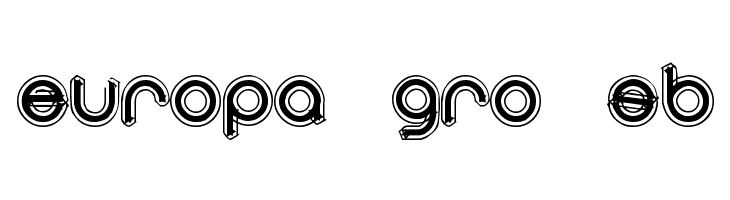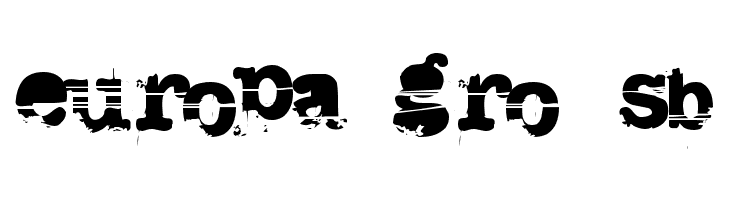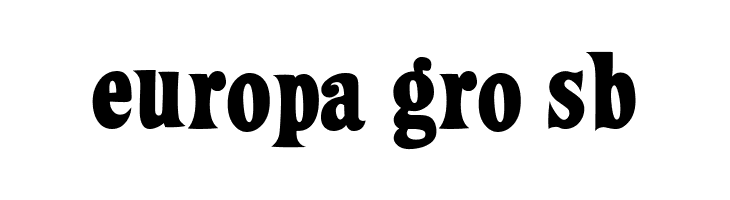
A futuristic, geometric font with bold, angular characters.
A playful, hand-drawn font with bold, irregular strokes and a whimsical style.
A bold, blocky, and playful font with a cartoonish style.
A bold, playful font with blocky, geometric characters.
An edgy, claw-inspired font with sharp, dramatic detailing.
A futuristic and abstract font with bold, geometric shapes and rounded edges.
A bold, graffiti-inspired outlined font with angular, geometric characters.
A bold, geometric font with sharp angles and a modern, industrial feel.
A playful, dotted font ideal for creative and informal designs.
A playful, dotted-line font with bold, rounded characters.
A bold, playful font with a double-layered effect and rounded strokes.
A bold, angular font with a dynamic, futuristic style.